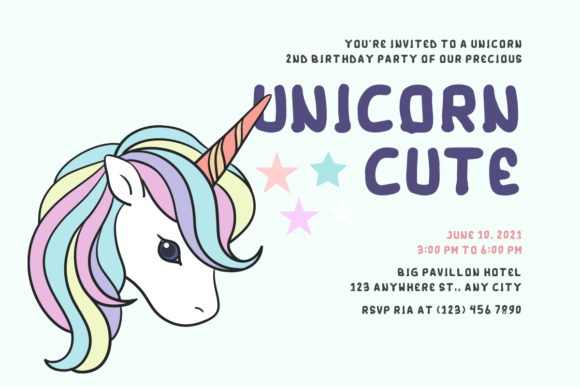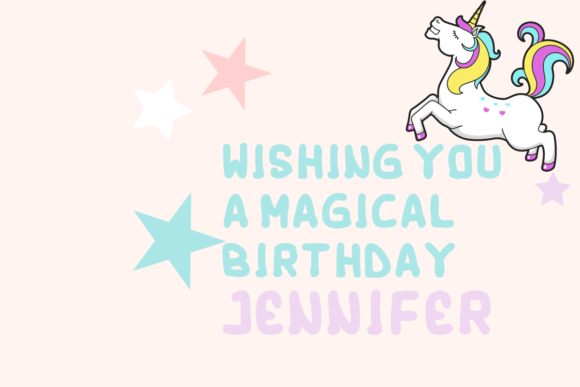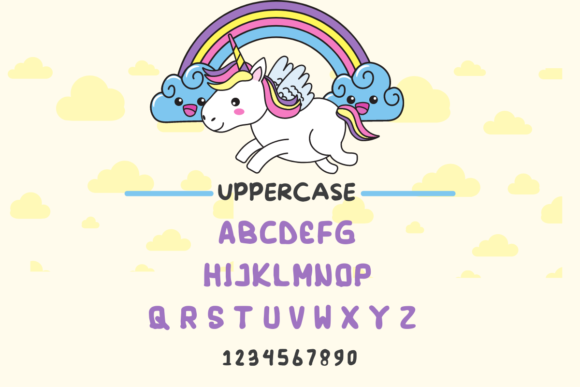
The Magical World of Fun Unicorn Font
Have you ever been in the middle of a design project, and suddenly, you just can’t seem to find the right font? I recall a particularly frustrating experience while working on a children’s event banner. My client wanted something playful, fun, and utterly enchanting. After scouring through countless font libraries, I stumbled upon the Fun Unicorn Font. It was love at first sight! 🎉
An Honest Review of Fun Unicorn Font
So, what makes the Fun Unicorn Font so special? Let’s dive into the good stuff and a few quirks I’ve discovered.
- ✨ Playful and Fun Design: The font’s whimsical design is perfect for events, education materials, children’s projects, and more.
- ✅ Highly Versatile: It can be used for a wide range of creative projects, from digital designs to print materials.
- 💫 Excellent Legibility: Despite its playful nature, the font remains clear and easy to read, even at smaller sizes.
- 🤔 Limited Use in Formal Contexts: Due to its playful nature, Fun Unicorn Font might not be suitable for formal or professional projects that require a more serious tone.
- ⚠️ Glyph Limitations: While the font comes with a variety of glyphs and stylistic alternates, it might not have everything you need for highly specialized projects.
The Backstory of Fun Unicorn Font
Legend has it that the creators of Fun Unicorn Font were inspired by the whimsical world of children’s literature. They wanted to craft a font that would bring a touch of magic to any design project. With its playful and fun design, Fun Unicorn Font has become a favorite among designers and crafters.
Q: What type of projects is Fun Unicorn Font best suited for?
A: Fun Unicorn Font is perfect for events, education materials, children’s projects, and any creative project that requires a playful and fun touch.
Q: Is Fun Unicorn Font available in different weights or styles?
A: Currently, Fun Unicorn Font comes in a single weight. However, its versatility and range of glyphs make it an excellent choice for various design applications.